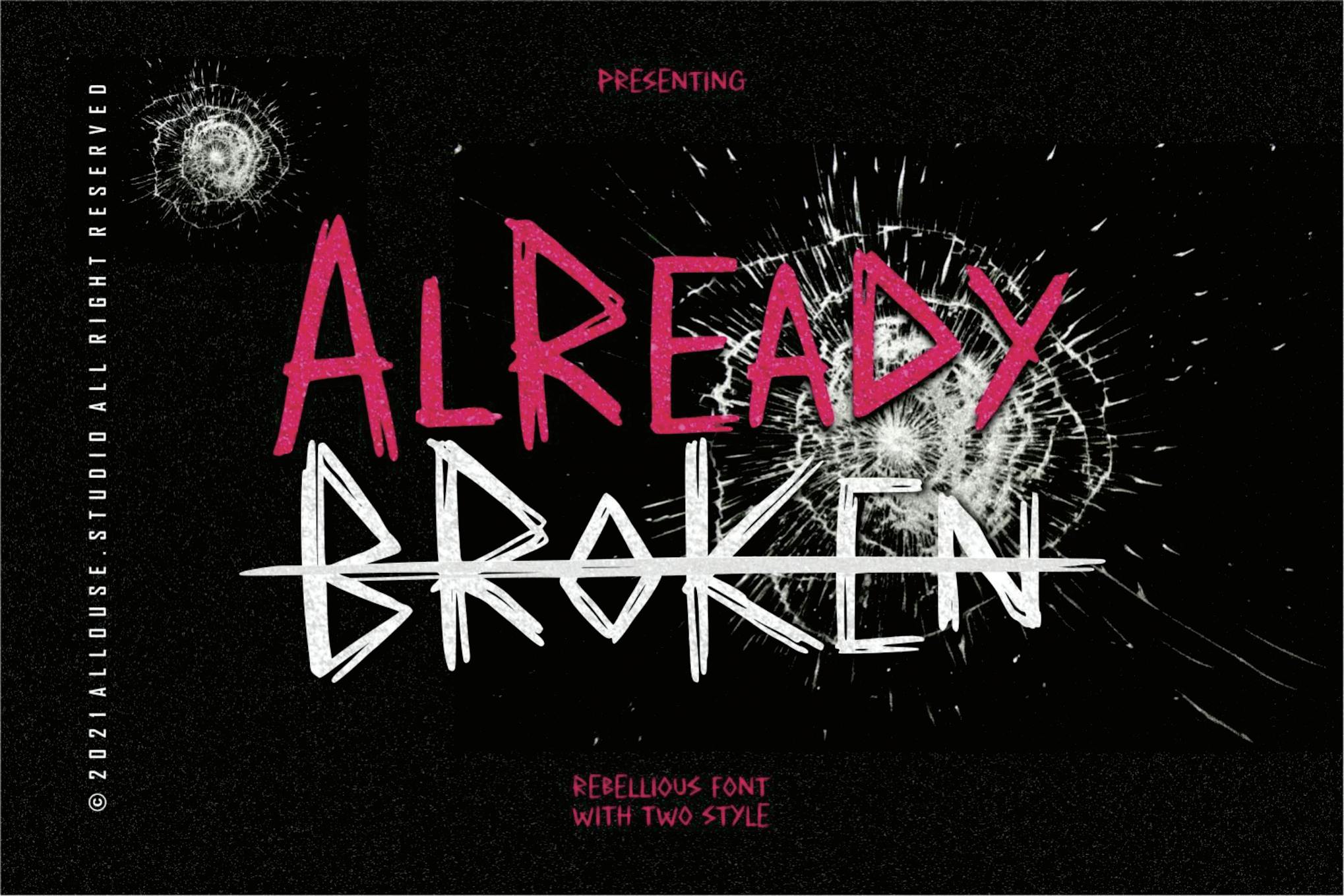
AL - Already Broken Font
The AL - Already Broken Font is perfect for grunge music posters, distressed band merchandise, vintage horror movie titles, weathered signage designs, post-apocalyptic game graphics, urban street art projects, alternative magazine layouts, edgy album covers, rebellious fashion branding, and underground event promotions.
What makes the AL - Already Broken Font so exciting is its authentic weathered aesthetic that perfectly captures the raw energy of decay and urban deterioration. This striking typeface features realistic damage effects, organic wear patterns, and convincing distress textures that create an unmistakable vintage grunge appearance ideal for projects requiring genuine edge and alternative attitude. The font's deliberately broken character and rebellious spirit make it an outstanding choice for brands seeking to communicate authenticity, nonconformity, and underground culture credibility.
The AL - Already Broken Font family includes multiple distress variations, featuring different levels of damage intensity, alternate broken characters, and textural options. Each variation maintains the signature weathered appeal while offering different degrees of destruction and wear patterns, providing designers with extensive creative control over the level of grunge effect and visual impact.
The realistic distress effects of AL - Already Broken Font demonstrate expert grunge typography design, with each character featuring carefully crafted damage patterns and authentic wear textures that enhance its credible aged appearance. The font's comprehensive character set includes standard letters, numbers, punctuation, and special symbols, ensuring complete functionality for diverse underground projects and international applications.
Specially designed for both digital and print applications, this remarkable font maintains its convincing distressed character and gritty readability across all sizes and formats. From large-scale concert posters to detailed merchandise designs, AL - Already Broken Font performs exceptionally while preserving its distinctive broken aesthetic and authentic grunge atmosphere.